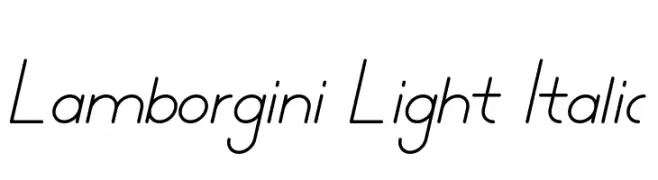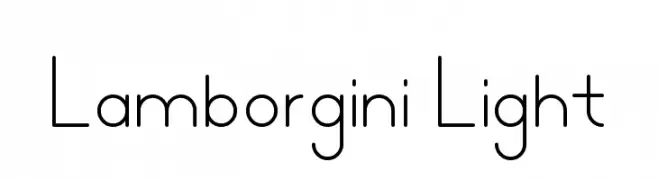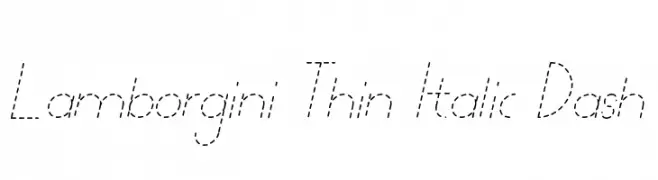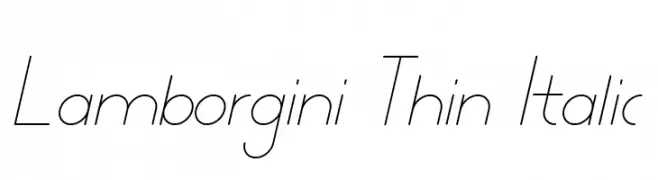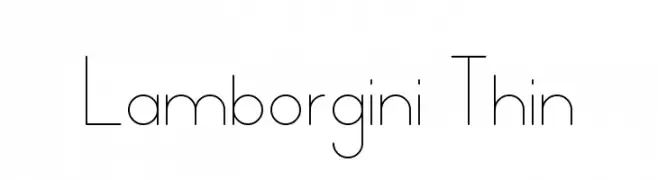
A sleek, modern font with thin, uniform strokes and a geometric influence.
A modern, dashed-line font with a playful and cohesive design.
A sleek, modern, and lightly italicized font with smooth, rounded edges.
A modern, italicized font with a unique dashed line style.
A sleek, modern font with thin, elongated strokes and a geometric structure.
A modern, dashed line font with a playful and stylish appearance.
A sleek, modern, and elegant thin italic font with elongated letterforms.
A modern, dashed line italic font with a sleek and playful style.